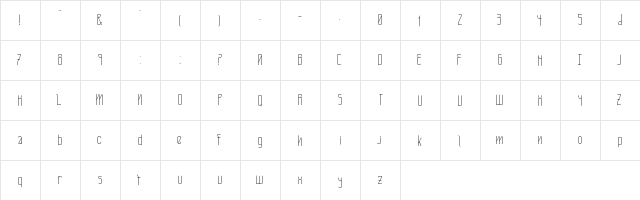
Few karen 1 Regular
| Designer | Few Karen |
Design Context for Few karen 1 Typeface
Few karen 1 takes a measured approach to typography — its balanced proportions and neutral character make it a reliable workhorse for both digital and print work.